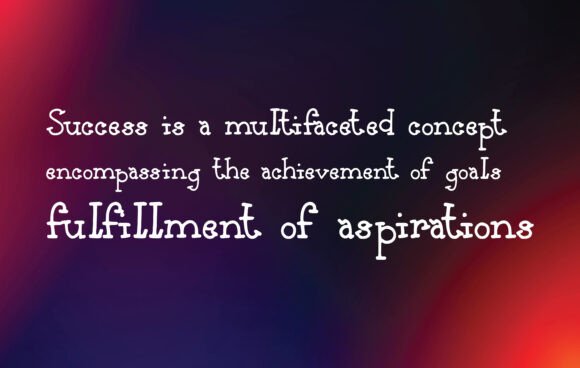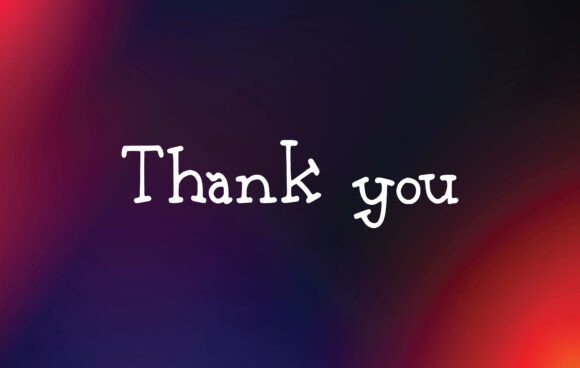
Discover the Beauty of Arhan Font: Elevate Your Designs with this Lovely Handwritten Font
Are you a designer or crafter looking for a font that can take your creative ideas to the next level? Look no further than the Arhan Font. This beautiful handwritten font is perfect for creating eye-catching logos, branding, and quotes that will leave a lasting impression on your audience. In this article, we’ll dive into the features and benefits of the Arhan Font, and explore how it can elevate your designs.
What is Arhan Font?
Arhan Font is a lovely and beautiful handwritten font that is designed to add a personal touch to your designs. With its unique and elegant style, this font is perfect for creating a wide range of projects, from logos and branding to quotes and social media graphics. The Arhan Font is carefully crafted to provide a distinctive look that will set your designs apart from the rest.
Key Features of Arhan Font
- Unique and Elegant Style: The Arhan Font features a unique and elegant style that is perfect for creating sophisticated designs.
- Handwritten Look: The font has a handwritten look that adds a personal touch to your designs.
- High-Quality Design: The Arhan Font is designed with high-quality craftsmanship, ensuring that it looks great in any size or format.
- Easy to Read: The font is easy to read, making it perfect for creating quotes, posters, and other designs where readability is important.
- Versatile: The Arhan Font is versatile and can be used for a wide range of projects, from logos and branding to social media graphics and more.
Benefits of Using Arhan Font
So why choose the Arhan Font for your designs? Here are just a few benefits of using this lovely handwritten font:
- Adds a Personal Touch: The Arhan Font adds a personal touch to your designs, making them more relatable and engaging.
- Creates a Lasting Impression: The font’s unique and elegant style creates a lasting impression on your audience, making your designs more memorable.
- Perfect for Branding: The Arhan Font is perfect for creating branding materials, such as logos and business cards, that reflect your brand’s personality.
Tips for Using Arhan Font
Here are a few tips for using the Arhan Font:
- Experiment with Sizes: Experiment with different sizes to find the perfect fit for your design.
- Pair with Other Fonts: Pair the Arhan Font with other fonts to create a unique and interesting look.
- Use for Headlines: Use the Arhan Font for headlines and titles to add a touch of elegance and sophistication.
- Use for Quotes: Use the font for quotes and social media graphics to add a personal touch.
In conclusion, the Arhan Font is a lovely and beautiful handwritten font that is perfect for designers and crafters looking to elevate their designs. With its unique and elegant style, this font is perfect for creating eye-catching logos, branding, and quotes that will leave a lasting impression on your audience. Whether you’re a professional designer or a DIY crafter, the Arhan Font is a great choice for adding a personal touch to your designs.